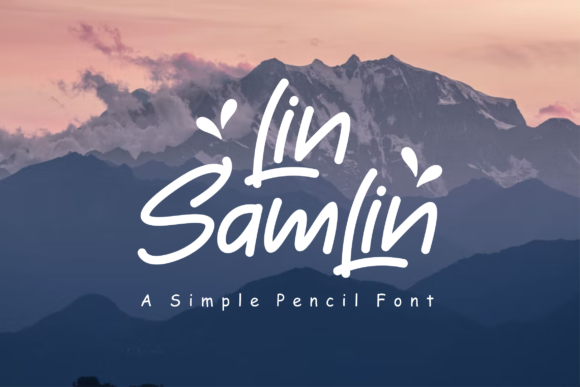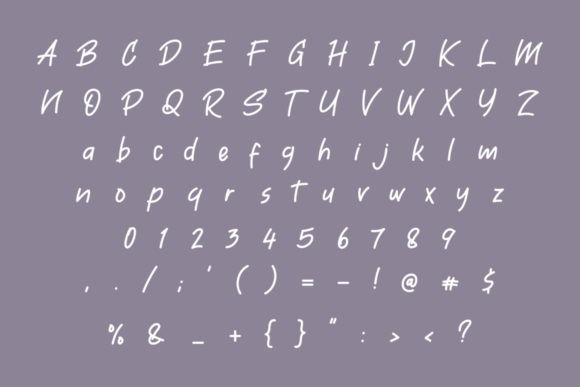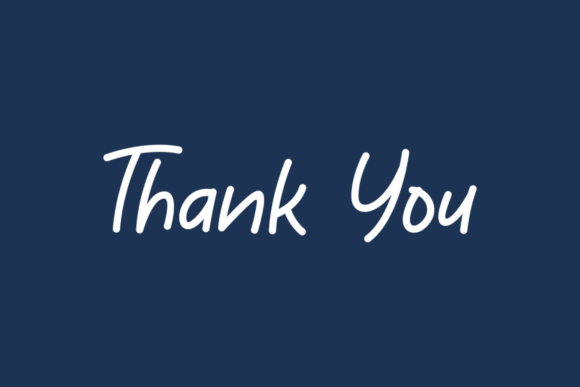
About Lin SamLin Font
Lin SamLin is a clean and authentic handwritten font. The font is suitable for any branding project like logo, t-shirt printing, esport, and many more. It will look outstanding in a wide range of contexts.